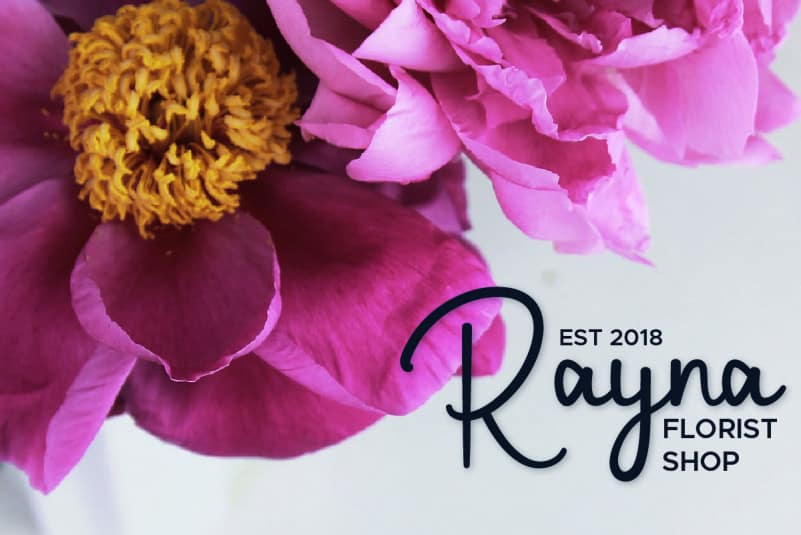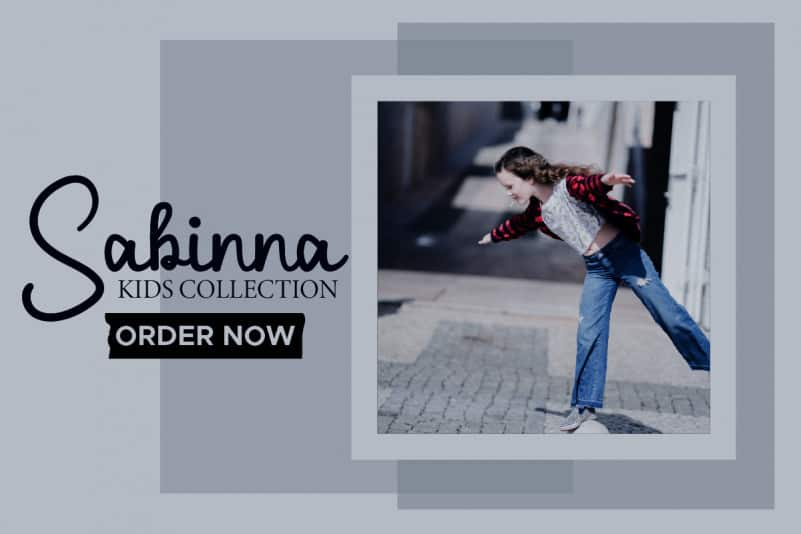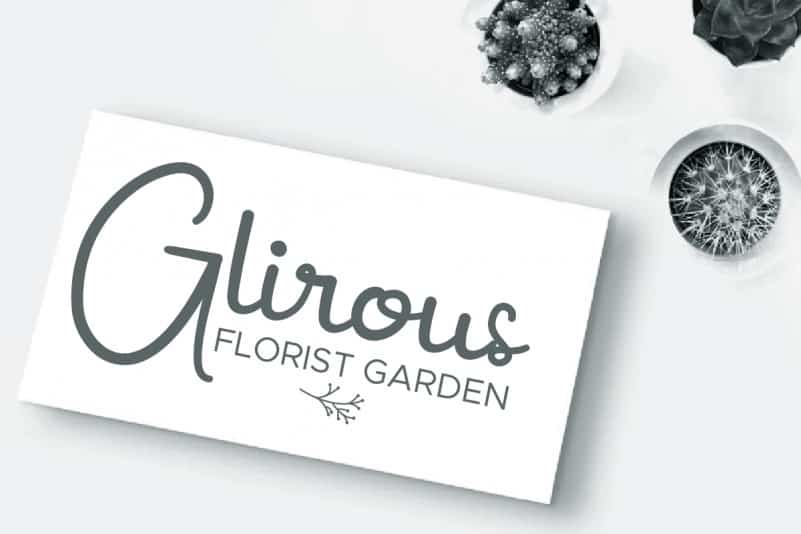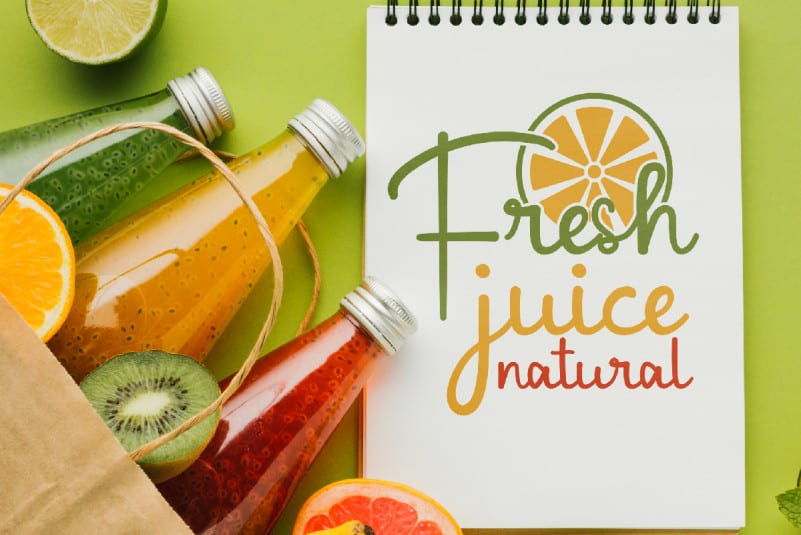
Beliary Script Font
Beliary Script Font was handcrafted With simple characters, love theme for romantics project. It will be stunning for any your special projects including : games, promotion, events, branding, advertising, magazine, apps, signage, invitation, stationery, social media posts, product packaging, product designs, label, comic, watermark or and any projects that need handwriting style.
Beliary Script Font includes full set of cool uppercase and lowercase letters, numerals, a large range of punctuation and ligatures. All letters has hand-lettered style to make it unique yet cool looking design.